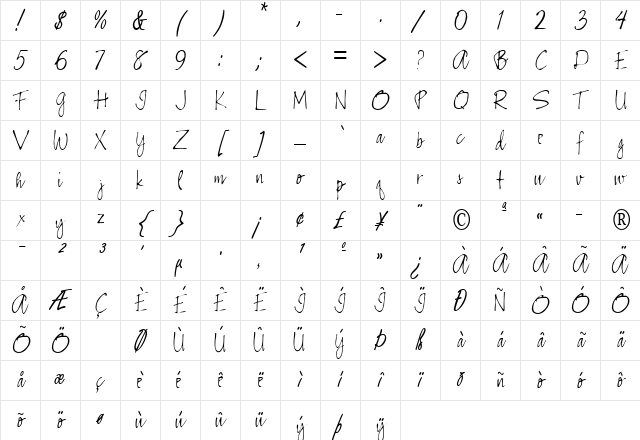
Low Regular
Low Family
Low Regular
Design Context for Low
Low is a composed and adaptable typeface that performs quietly and consistently across a wide range of design contexts.